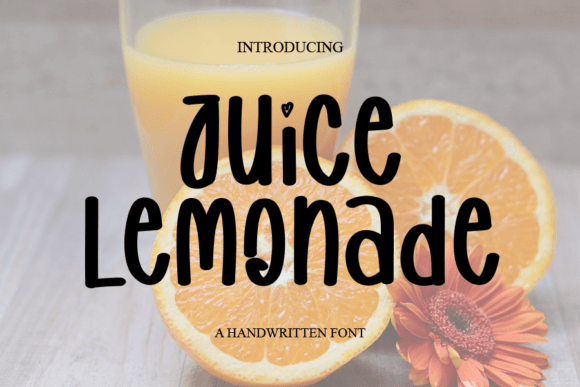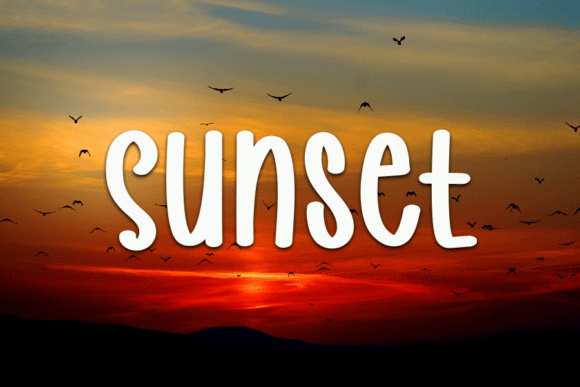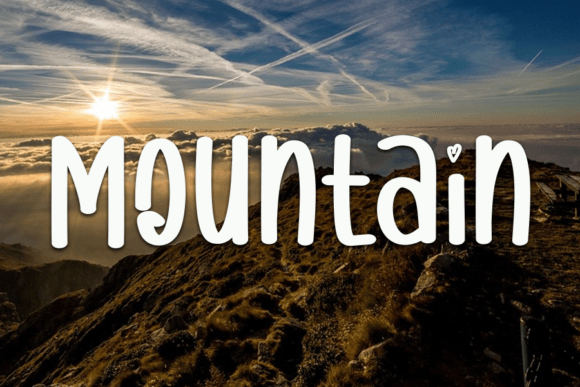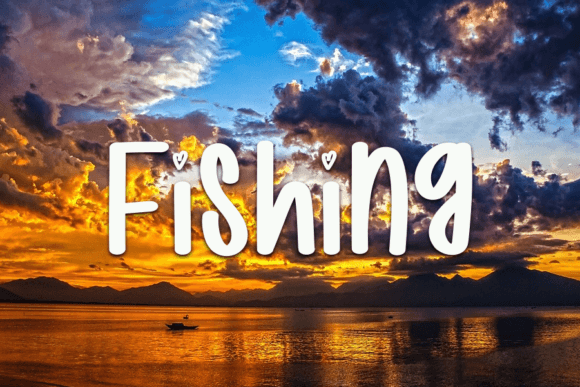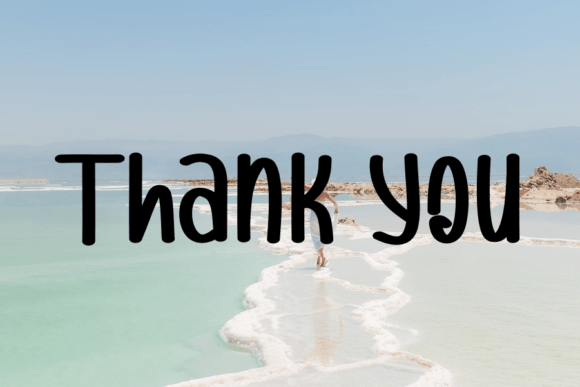
One of the most crucial elements in bringing your ideas to life is the right font. That’s why we’re excited to introduce you to the Juice Lemonade Font, a quirky and fun handwritten font designed to add a personal touch to your crafts, digital designs, presentations, and greeting cards.
Whether you’re a seasoned designer or a hobbyist, the Juice Lemonade Font offers endless possibilities for creative expression. Its unique charm and versatility make it an invaluable addition to any design toolkit, allowing you to convey your message in a way that’s both visually appealing and authentic.
Juice Lemonade Font Key Features
- Unique Characteristics: Features a playful, handwritten style with a touch of modernity and a wide range of expressive characters
- Font Weight: Includes light, regular, medium, bold, and heavy font weights for added flexibility
Juice Lemonade Font Review
Overall, I think the Juice Lemonade Font has some great qualities that make it a solid choice for certain projects. ✨ The unique, hand-drawn feel of the font adds a lot of personality and can really help a design stand out. The bold and playful vibe is perfect for brands that want to convey a sense of fun and energy.
One of the things that I appreciate about this font is its versatility. ✨ It comes in a range of weights and styles, making it easy to use in everything from headlines to body text. The font also includes a lot of special characters and symbols, which can be really helpful for adding visual interest to a design.
- Unique, hand-drawn feel
- Playful and energetic vibe
- Wide range of weights and styles
- Includes special characters and symbols
- May not be suitable for formal or professional projects
- Some characters may be difficult to read at small font sizes
- Limited language support
Overall, I think the Juice Lemonade Font is a great choice for projects that need a fun and playful vibe. However, it may not be the best choice for projects that require a more formal or professional tone. With some careful consideration and planning, this font can be a great addition to any design project. ⚠️ Just be aware of its limitations and use it thoughtfully.
The Juice Lemonade font is perfect for:
- Social media graphics and blog posts.
- Design projects that require a playful and eye-catching font.
- Presentations and documents that need a personal touch.